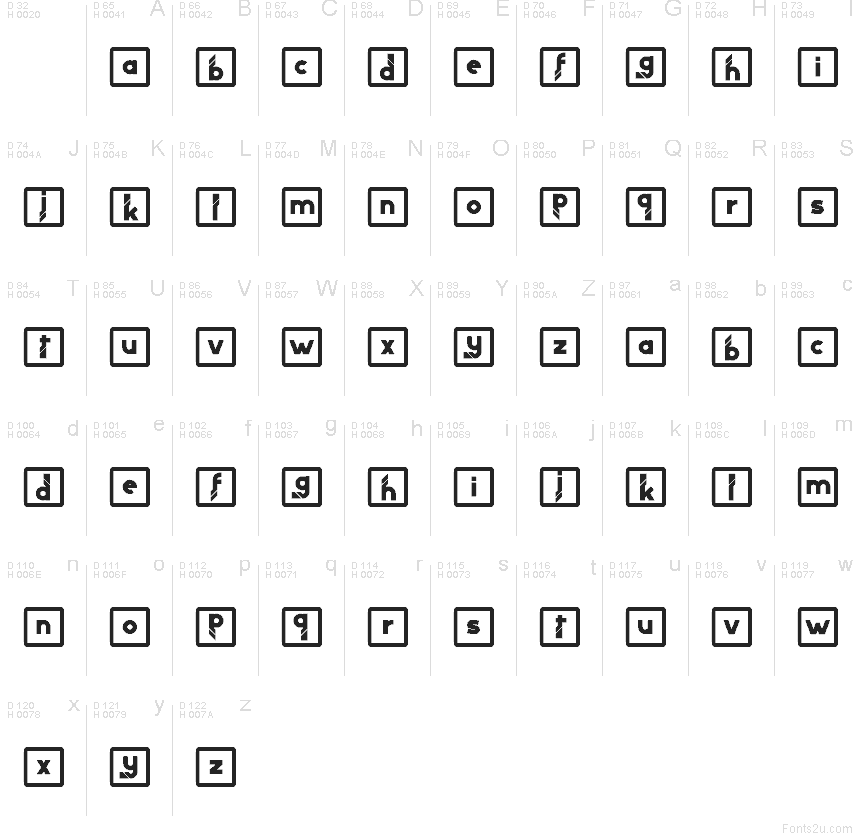
Statue Extravagant Regular
Statue Extravagant font by Vladimir Nikolic is a free decorative display typeface that looks like tiny letter tiles snapped into a tight grid. Each character sits in its own crisp square frame, giving your words the neat, clicky feel of game pieces or illuminated buttons. The bold black-and-white contrast and uniform spacing create a rhythmic, almost mechanical texture that jumps off the screen or page.
Using Statue Extravagant, you can instantly turn simple text into a graphic element for arcade-inspired posters, game logos, sci‑fi titles, badges, social graphics, and bold UI labels. This free font shines when set large, where the boxed forms read clearly and stack into strong patterns. Pair it with a clean geometric sans for body copy to keep the layout sharp and easy to read.